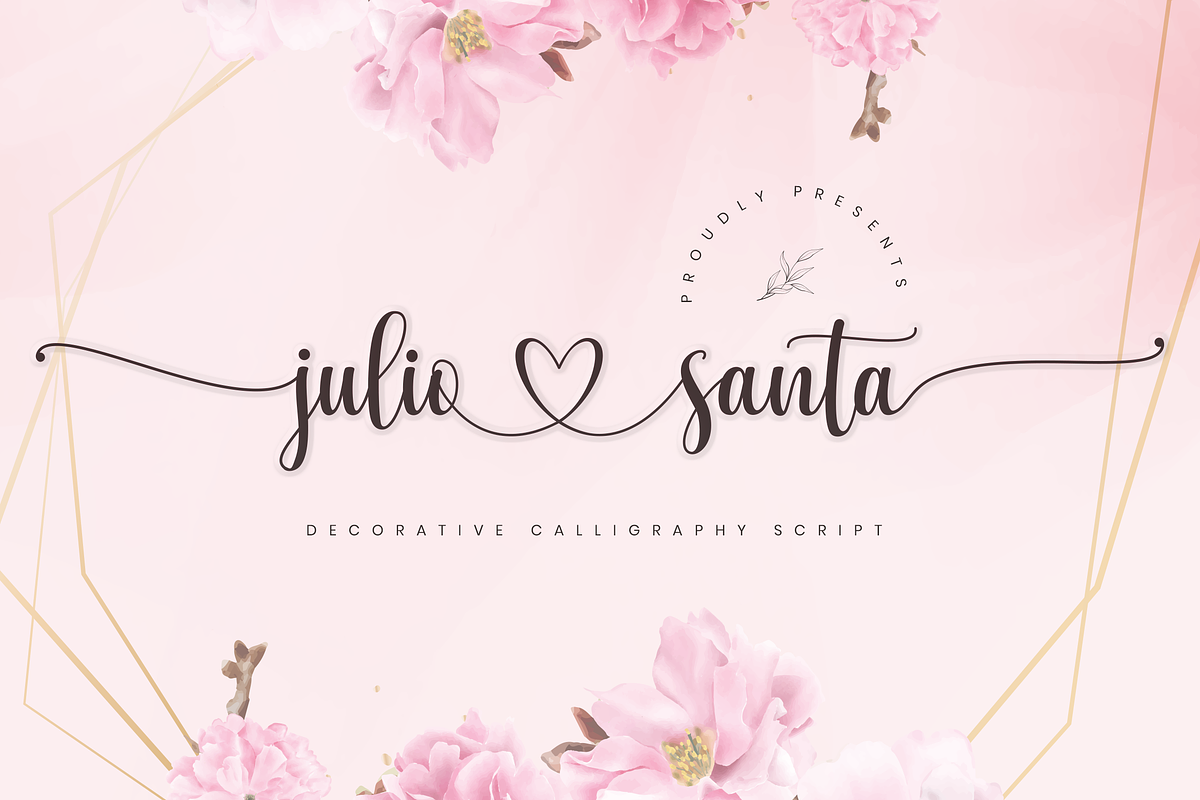
Julio Santa – Romantic Script Font Free Download is a graceful, flowing typeface designed to capture the elegance of handwritten love letters and heartfelt moments. With its delicate curves, smooth swashes, and romantic charm, this font is perfect for wedding invitations, love quotes, personal branding, event stationery, and elegant packaging.
Its luxurious script style adds a soft and emotional touch to any design, making it ideal for projects that need to feel warm, personal, and sophisticated. Whether you're crafting a bridal logo or a sentimental card, Julio Santa creates a timeless and stylish impression. Test it out for free, but remember that a commercial license is required for any business or revenue-generating use.
Add a touch of love to your work with Julio Santa – Romantic Script Font Free Download and let your designs speak with beauty, emotion, and charm. Perfect for creatives who want to express elegance through every letter.